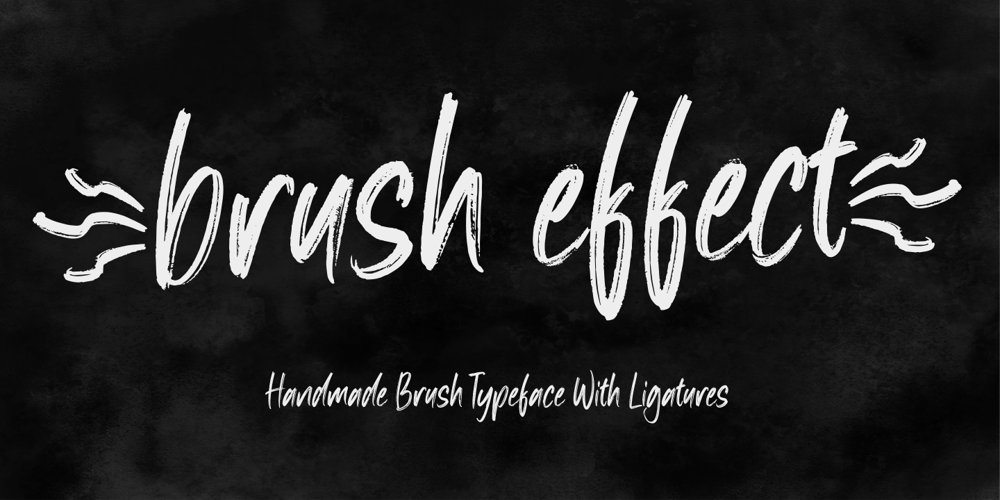
Brush Effect Font Family was designed by Siti Nurjanah and published by NJ Studio. Brush Effect contains 1 styles and family package options. Hi…Thank for your visit :)Brush effect a handwritten brush font. It features ligatures characters that will take your projects to the next level!This font is PUA code which means you can easily access all the glyphs that are full of brush! It also features many special features including glyphs. font designs that are made for various vector designs, printing such as digital wedding blogs, online shops, social media, while printing can be used in the field of product clothing, accessories, bags, pins, logos, business cards, watermarks and many others …so it can make your product look brush and attractive, and also Multilingual support!!!Happy design …